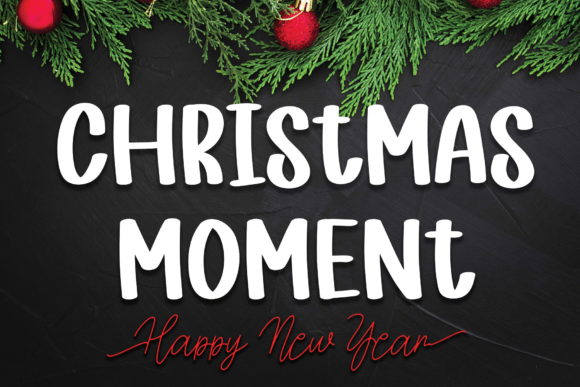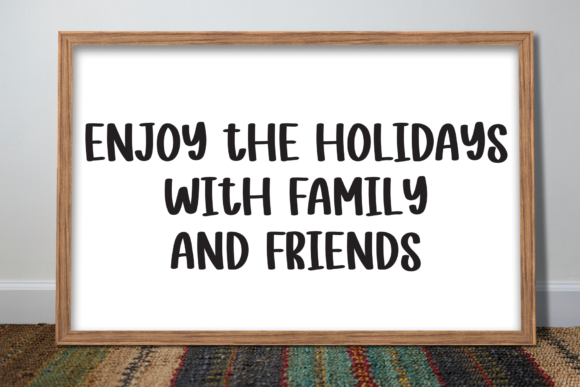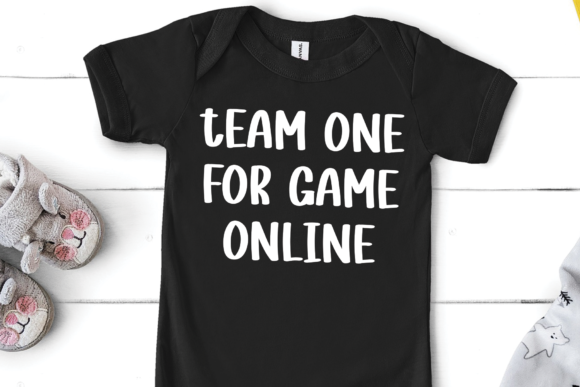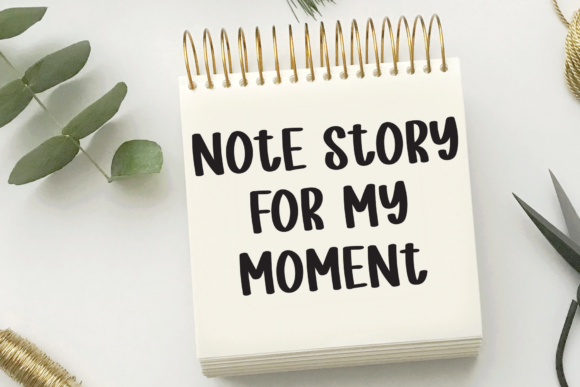
About Christmas Moment Font
Christmas Moment is a clean script font carefully created with a touch of trendiness. Whether you’re looking for fonts for Instagram or calligraphy scripts for DIY projects, this font will turn any creative idea into a true piece of art!